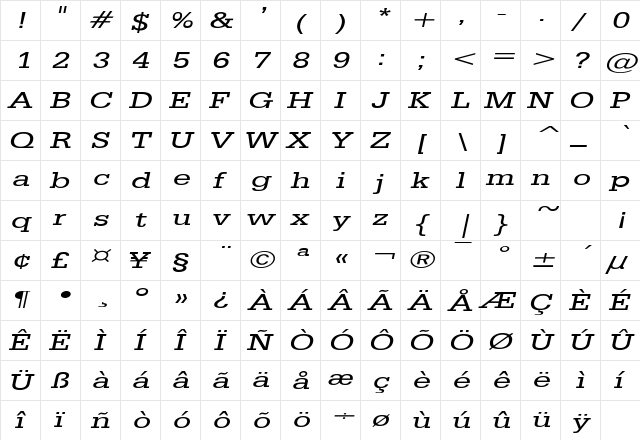
ClassicTypewriterExtended Italic
Design Context for ClassicTypewriterExtended Typeface
ClassicTypewriterExtended has the warm character of retro typography — evoking diners, record sleeves, and the golden age of print advertising. The dynamic lean of this cut emphasises speed and emphasis in any layout.
Font Pairing: Combine ClassicTypewriterExtended with a simple slab or neutral sans — period-accurate companions reinforce the vintage feel without competing for attention.
Pro Tip: Use ClassicTypewriterExtended for headlines and pull quotes rather than body copy — its personality is best appreciated in short, focused bursts.